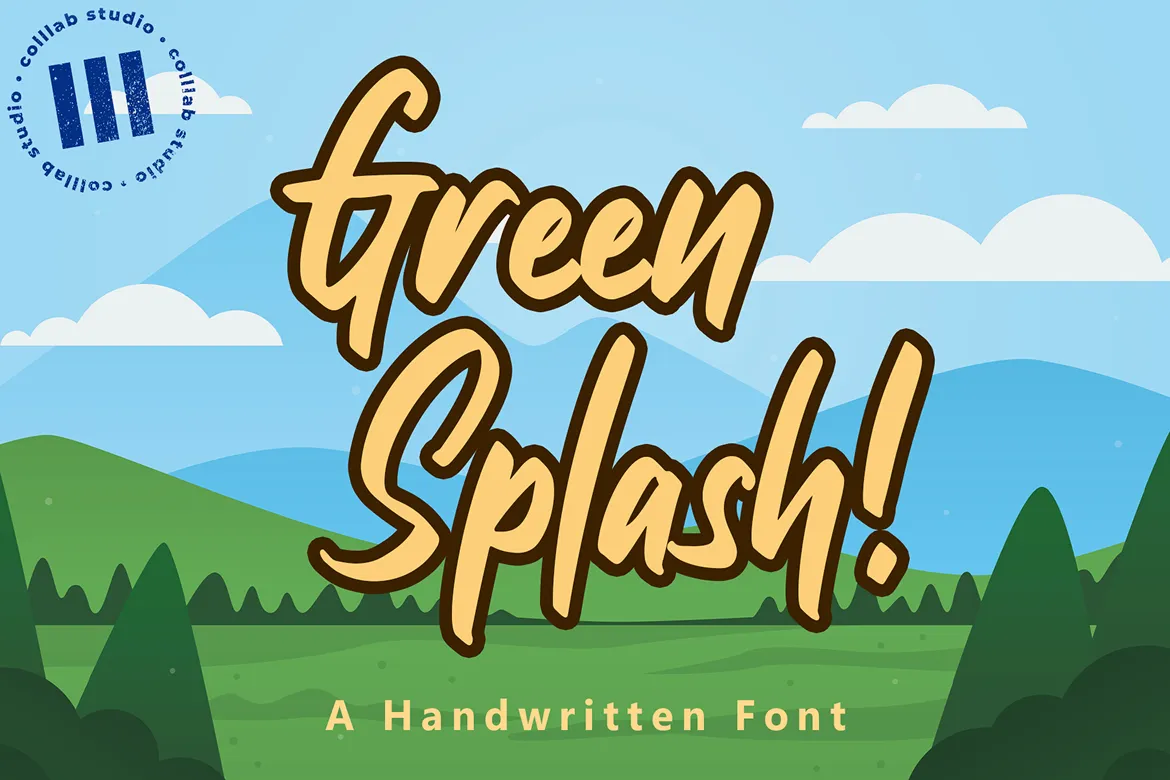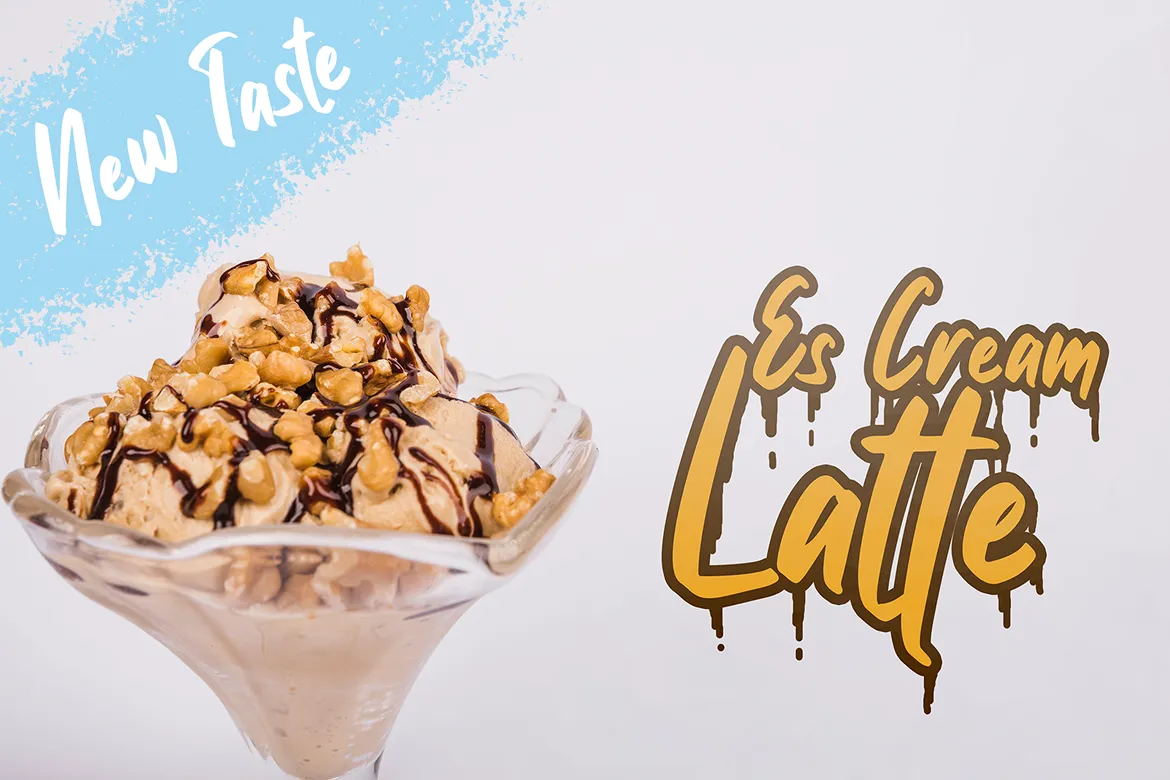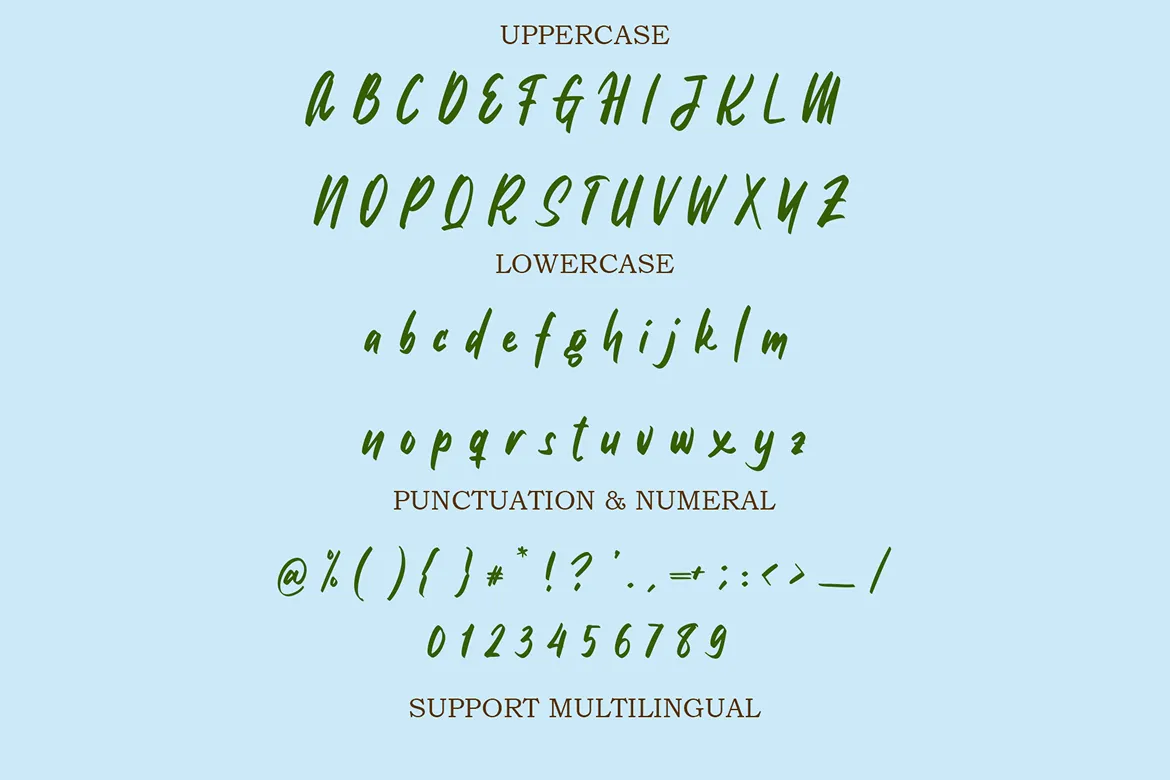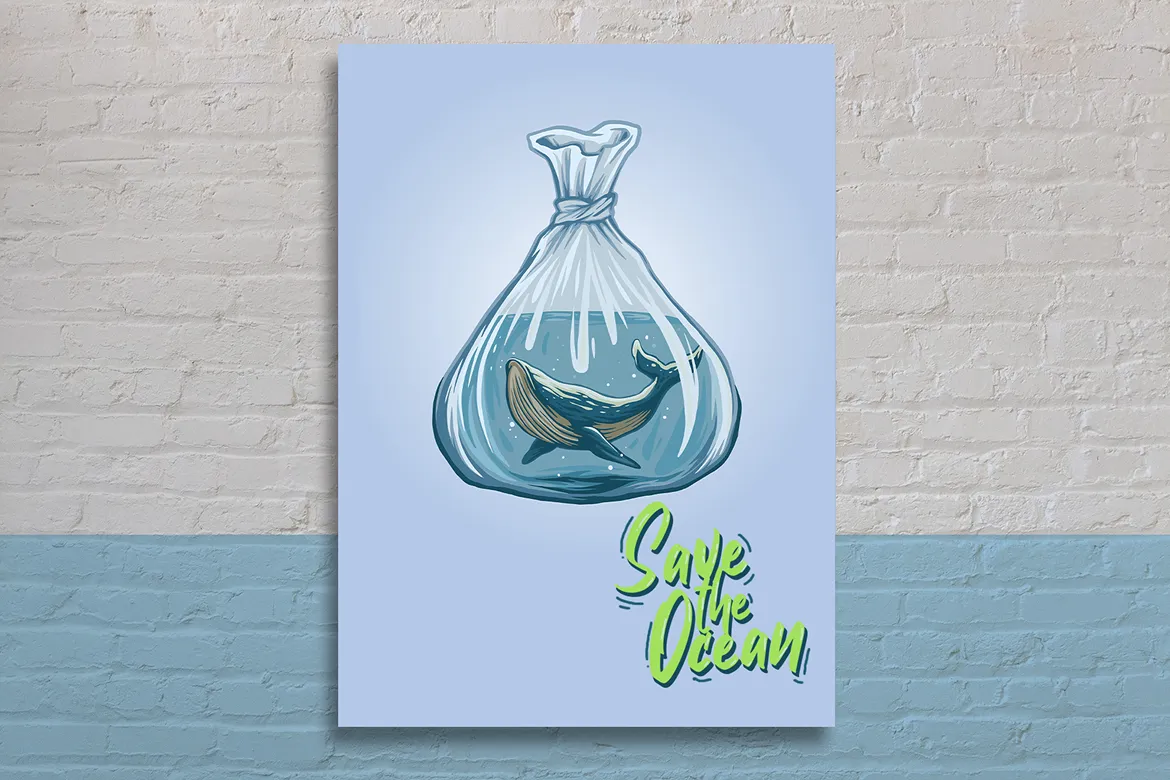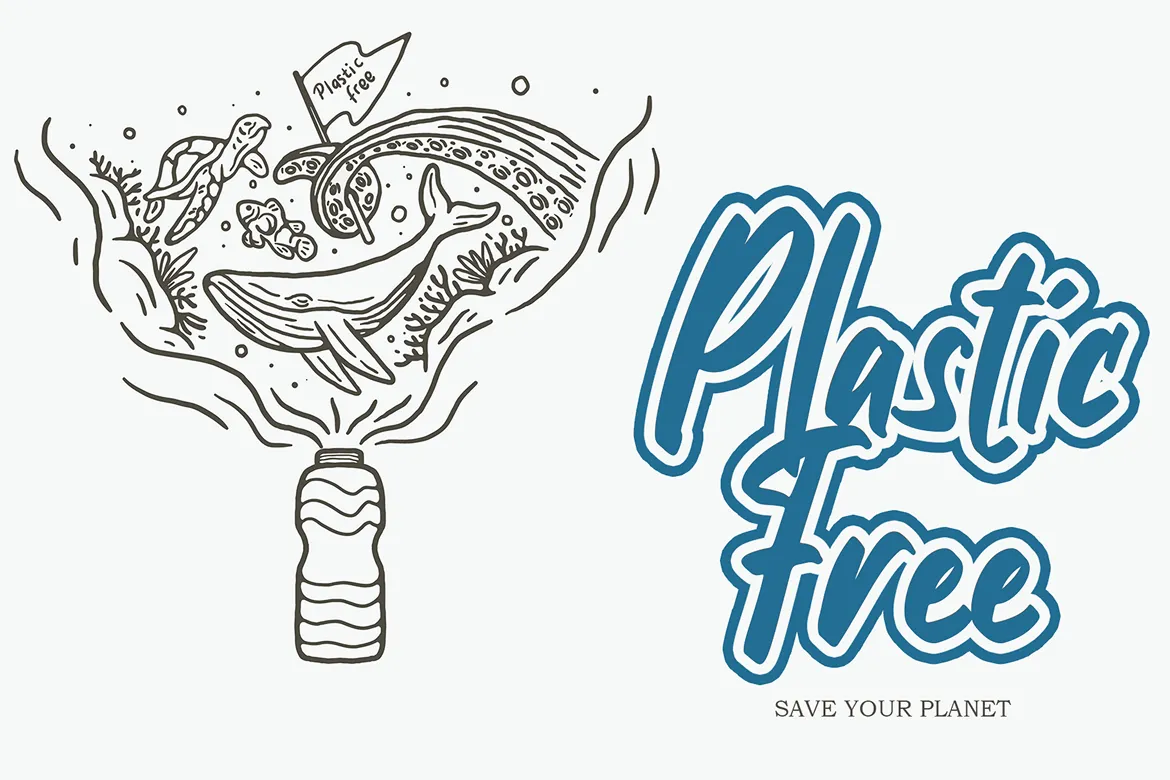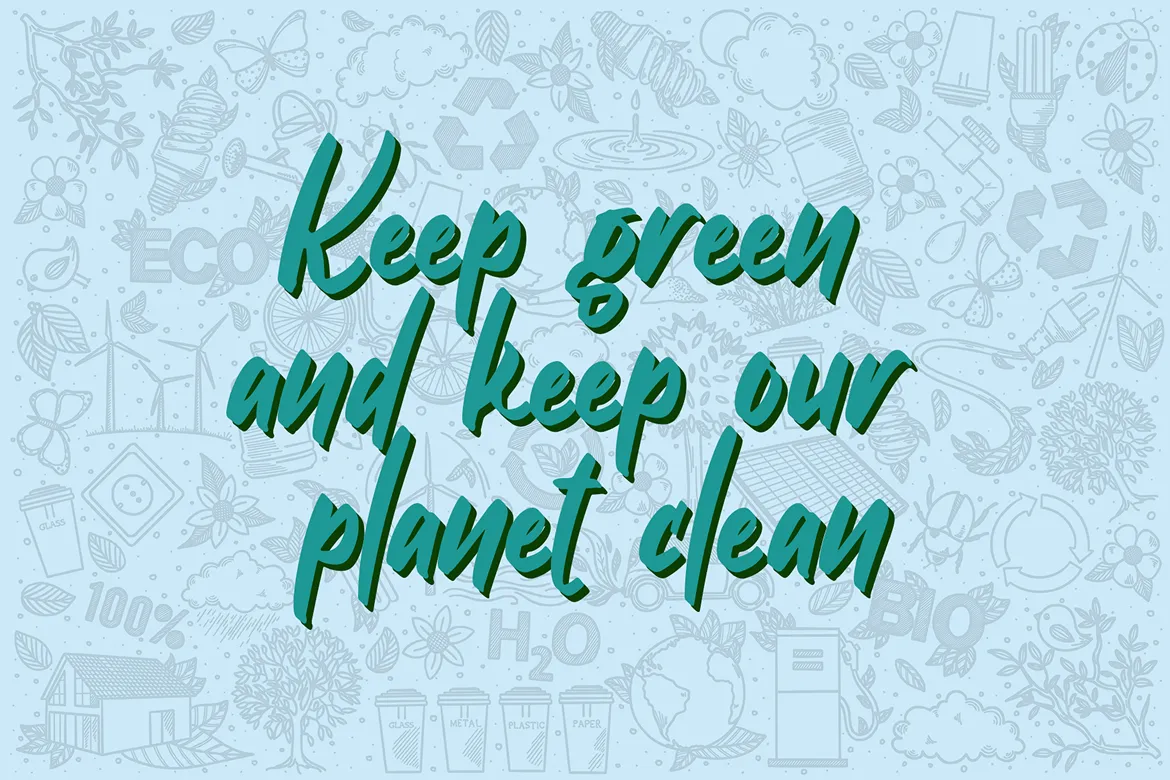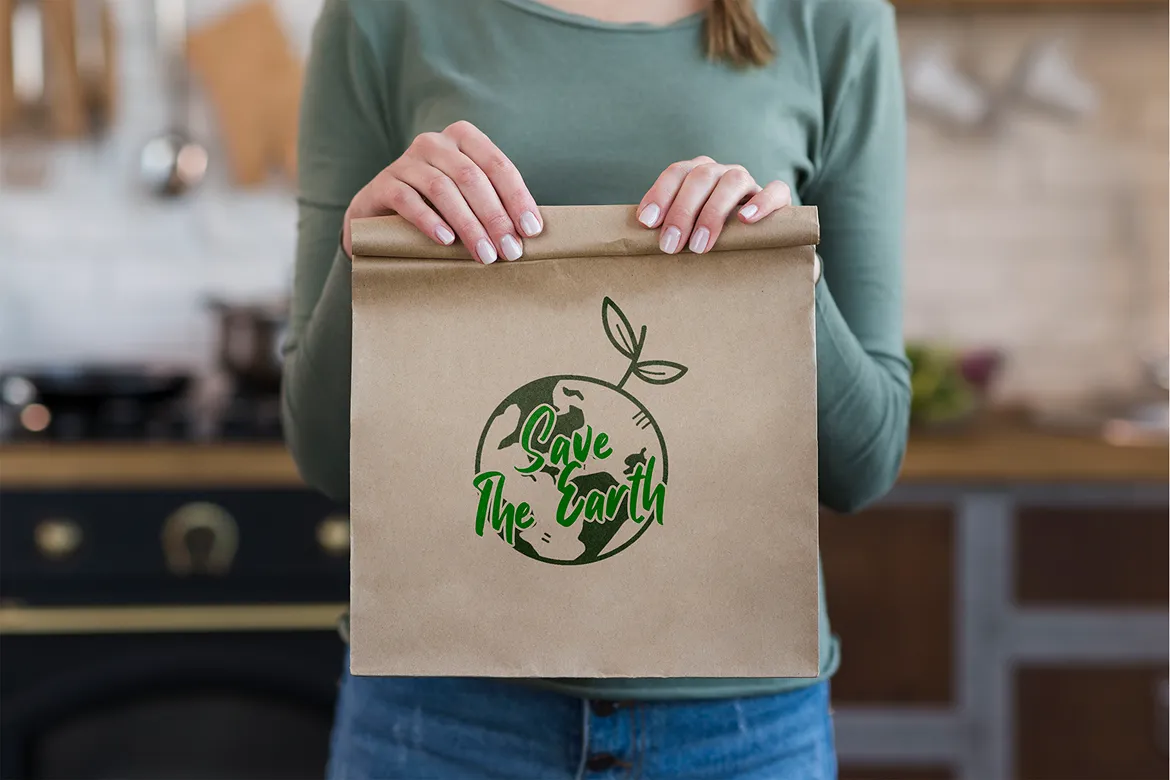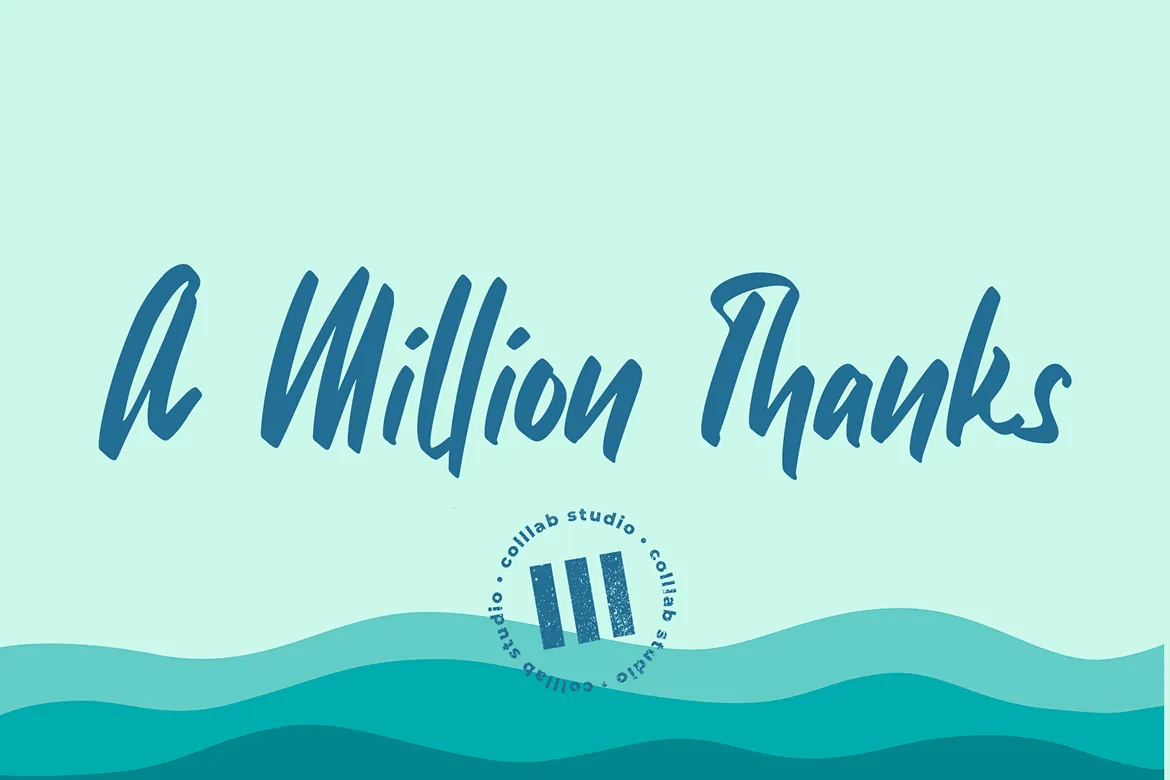
Green Splash! is a lively modern script font with a handmade calligraphy style that brings personality and charm to your designs. With decorative characters and smooth hand-drawn strokes, this font blends playfulness with elegance, making it suitable for both casual and professional projects. Whether you’re creating branding, invitations, or digital graphics, Green Splash! adds a fresh handwritten touch that instantly elevates your design.
Inspiration Behind the Font
Inspired by the organic flow of brush lettering, Green Splash! captures the spirit of creativity and freehand artistry. Its name reflects the lively energy and vibrant character that splashes into any design.
Key Features
Full uppercase & lowercase characters
Numbers & punctuation
Multilingual support